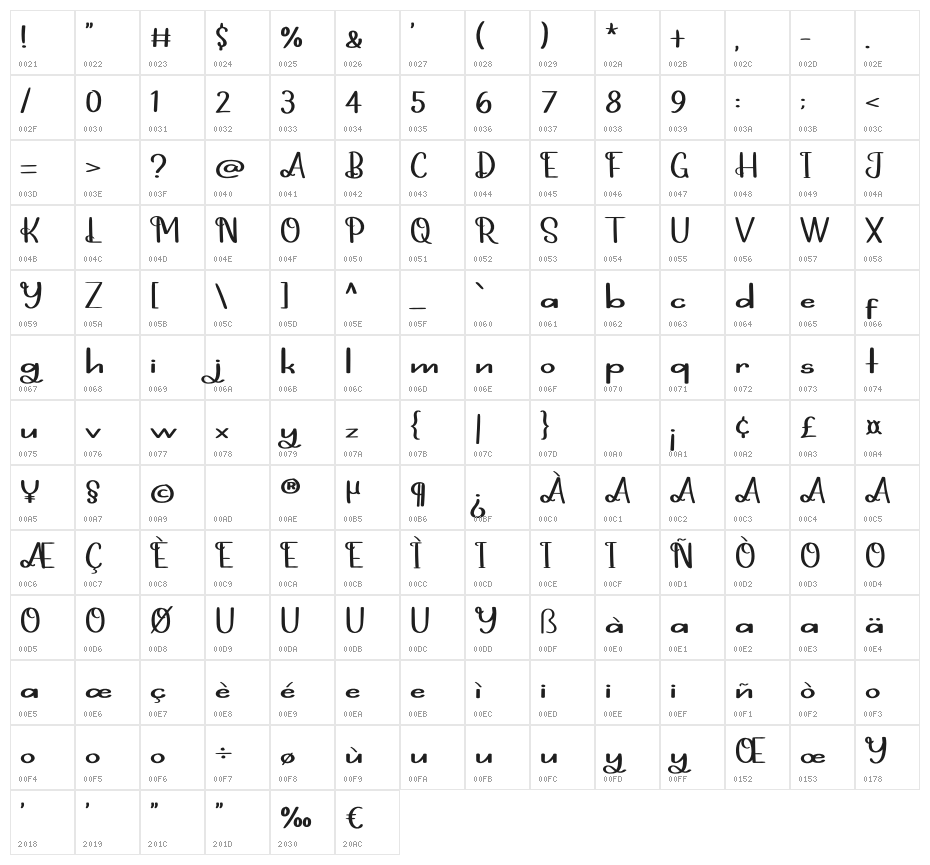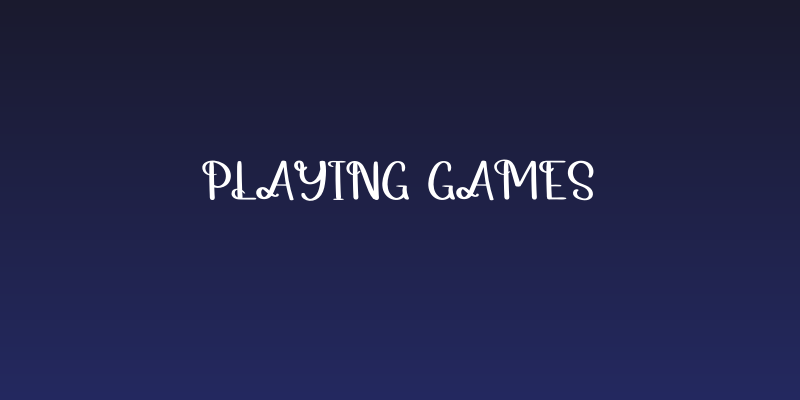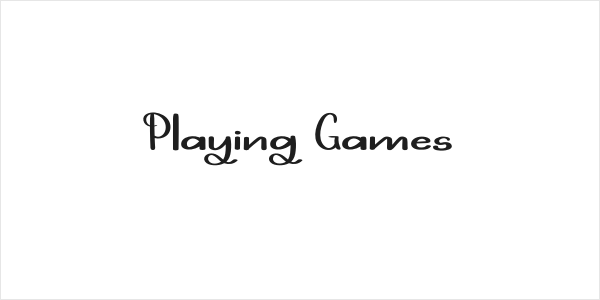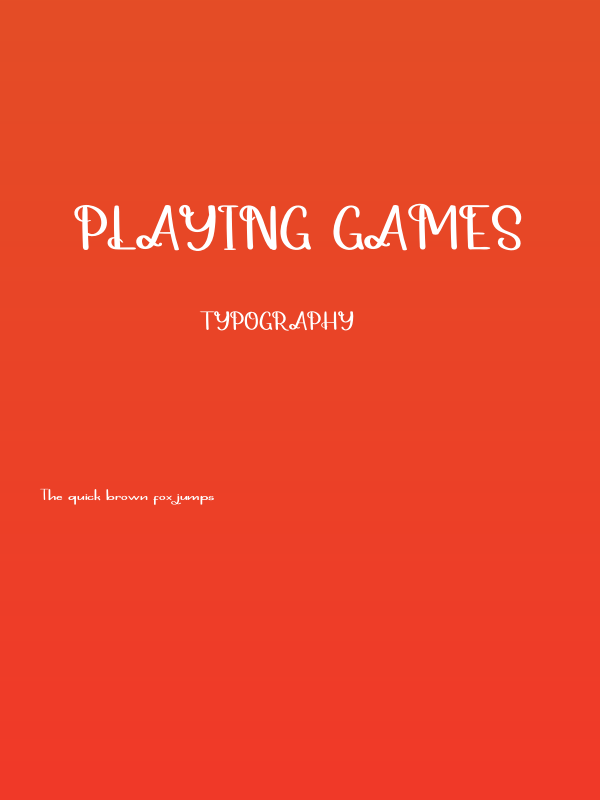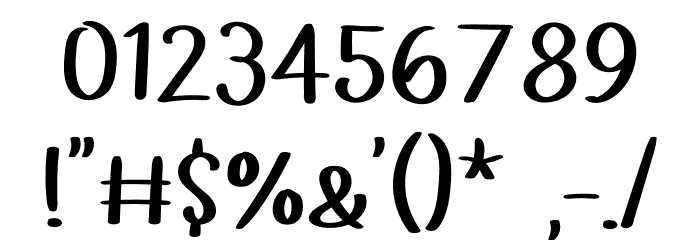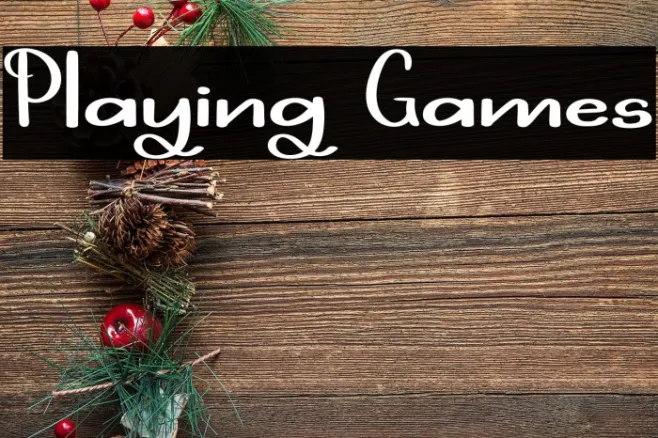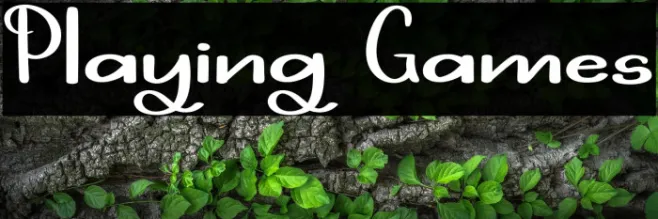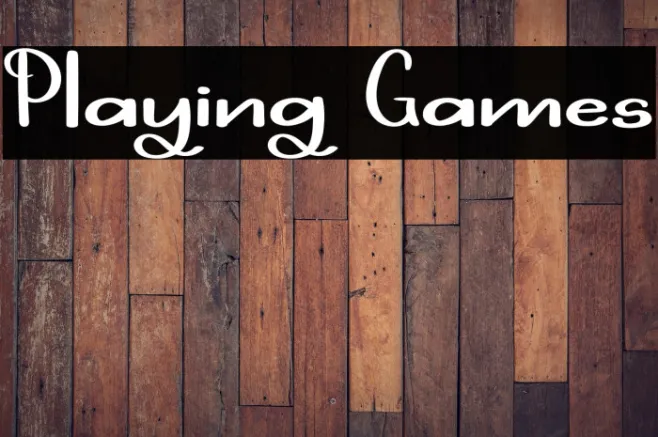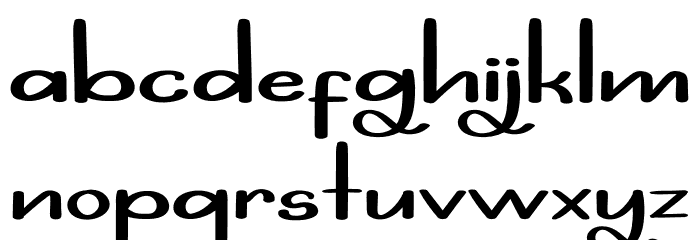
Playing Games Font
Playing Games Description
This playful and whimsical font features a unique blend of curves and loops, giving it a lively and energetic feel. The uppercase letters are characterized by their bold, rounded forms with decorative swirls, while the lowercase letters maintain a consistent style with slightly exaggerated tails and loops. The numerals are equally playful, with a consistent weight and rounded edges that complement the overall design. Special characters are designed to match the font's lively aesthetic, making it suitable for creative and fun projects. The font's distinct style makes it ideal for capturing attention and adding a touch of personality to any design.